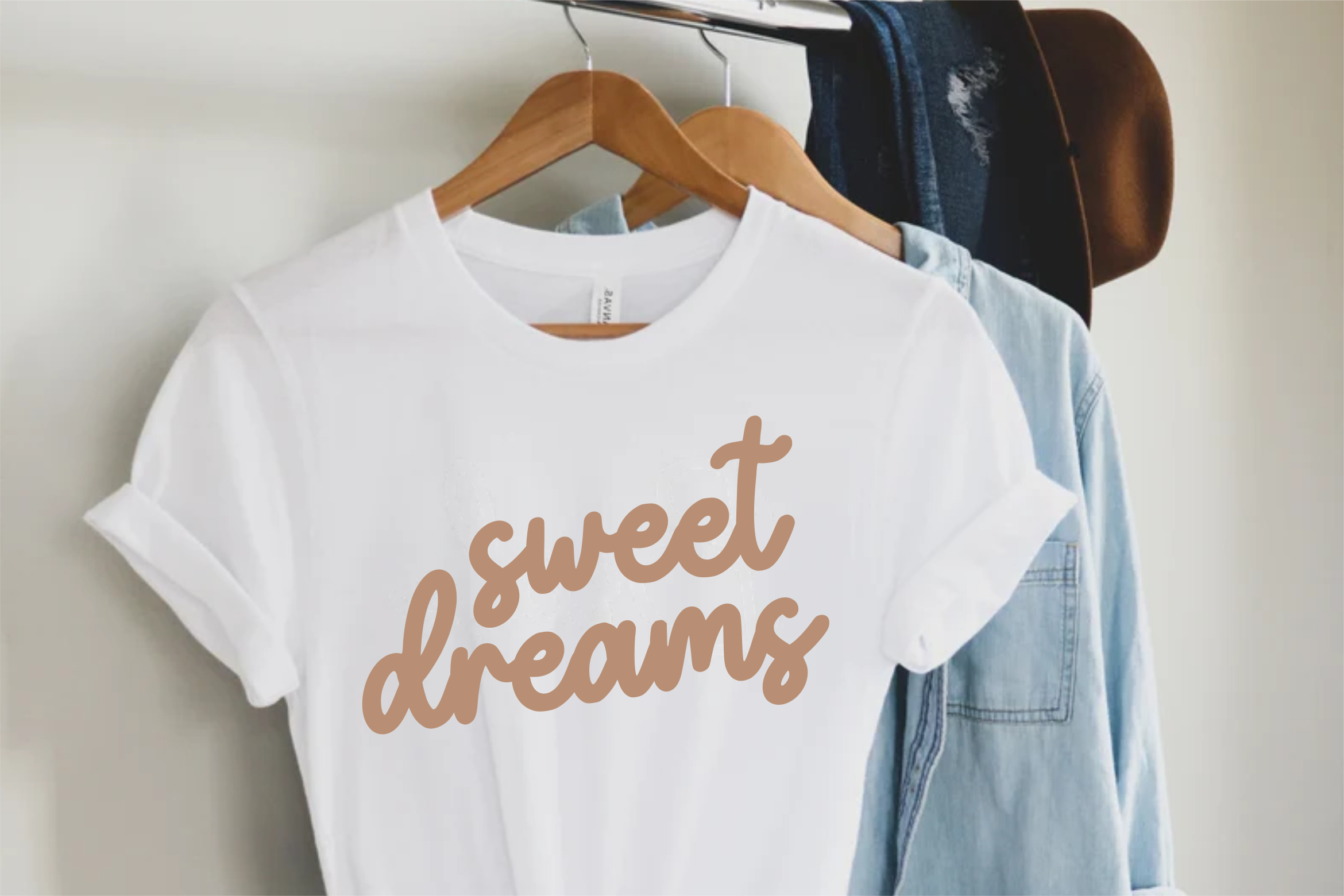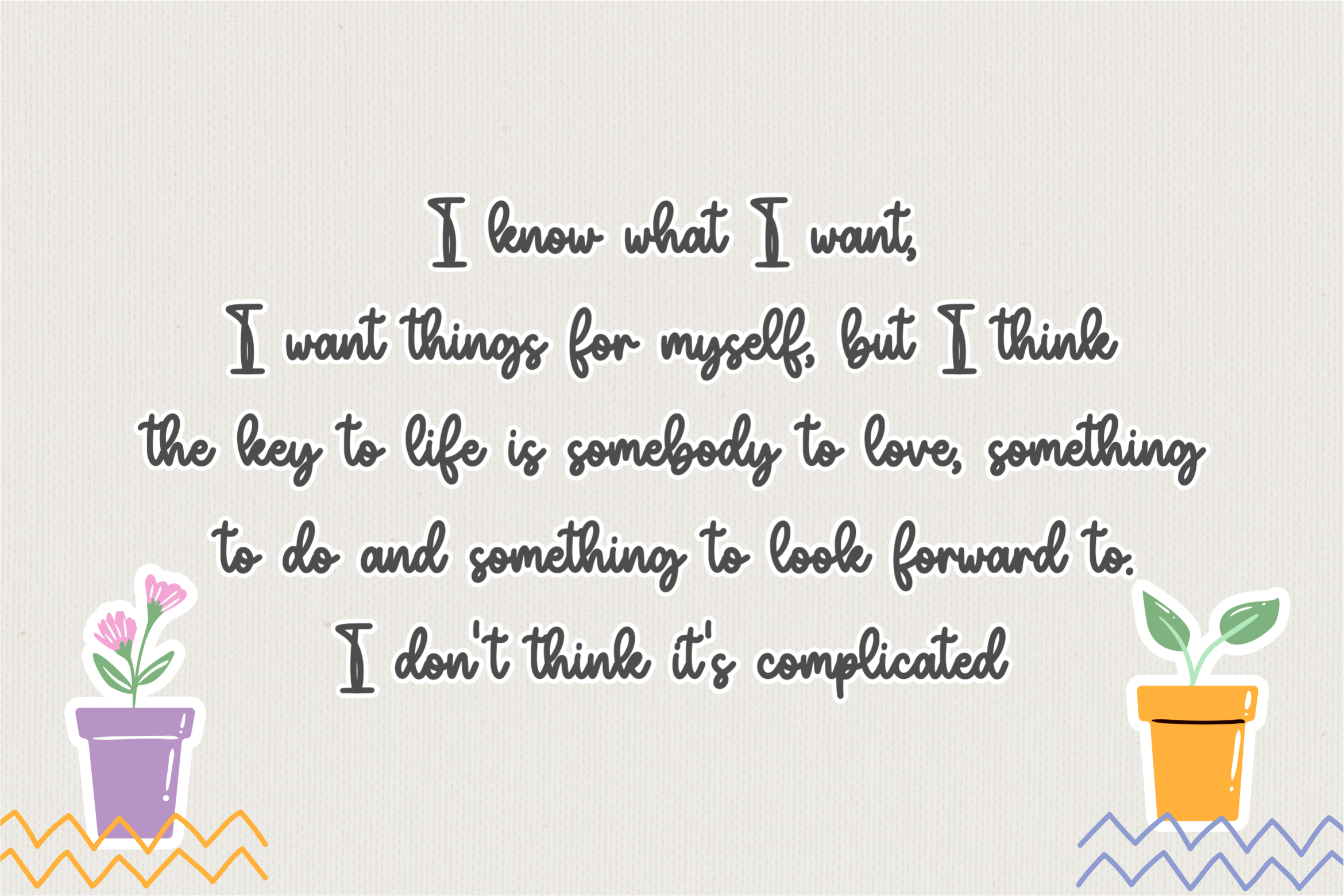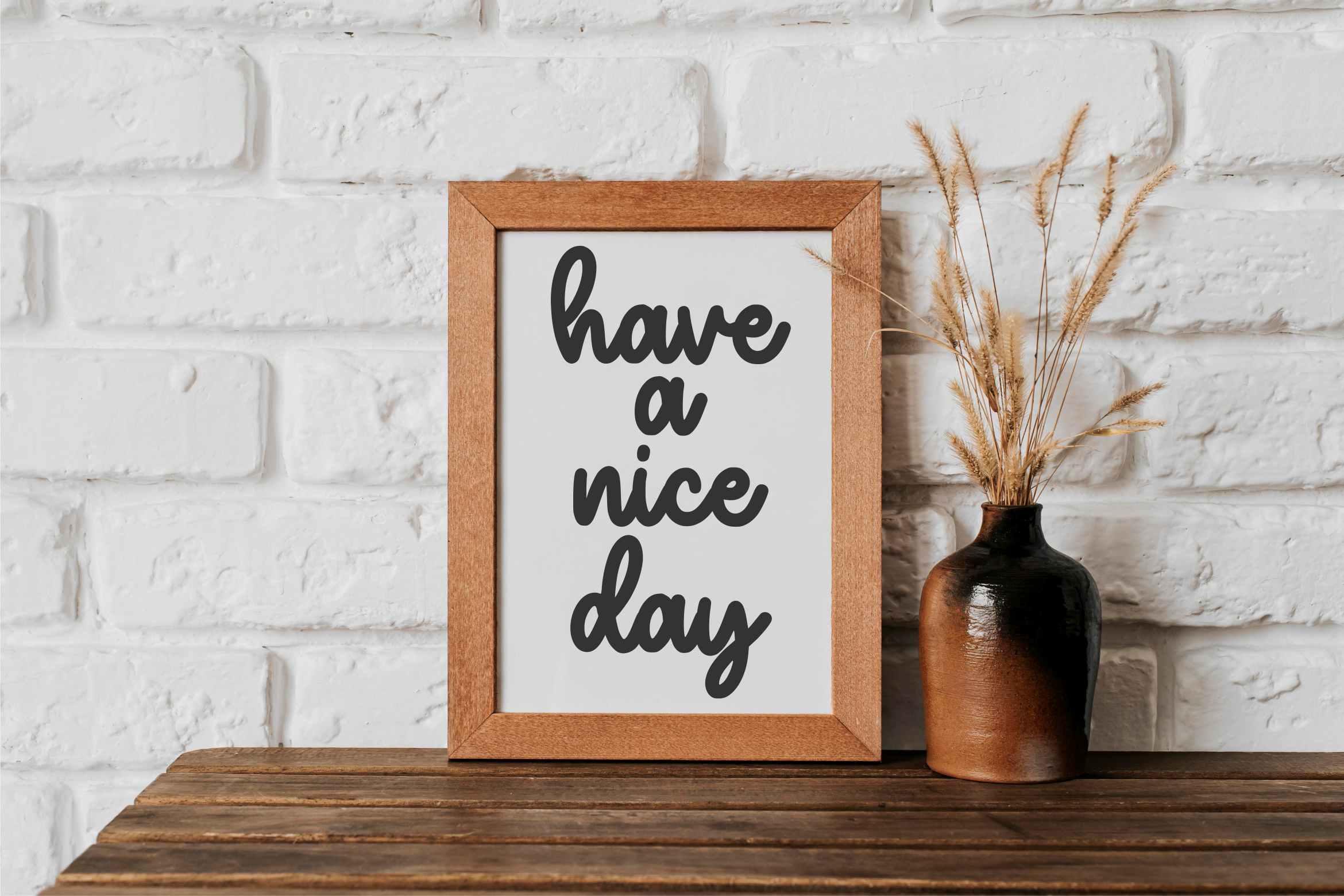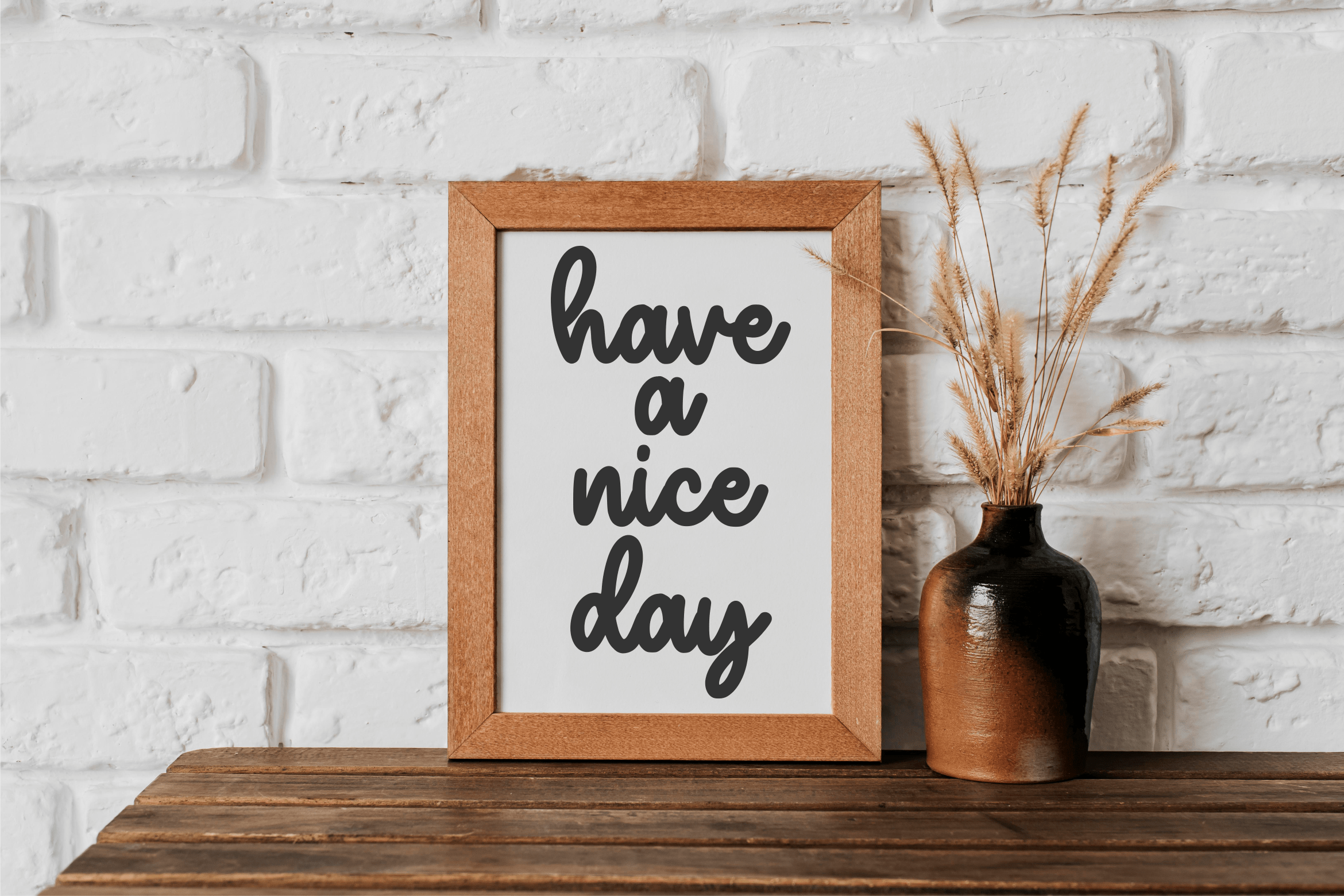
Gabydream Font
Gabydream Handwritten Font
This is a Monoline Bold Font. Gabydream is perfect for product packaging, branding project, megazine, social media, wedding, or just used to express words above the background. This font includes OTF & TTF, Gabydream also multilingual support.